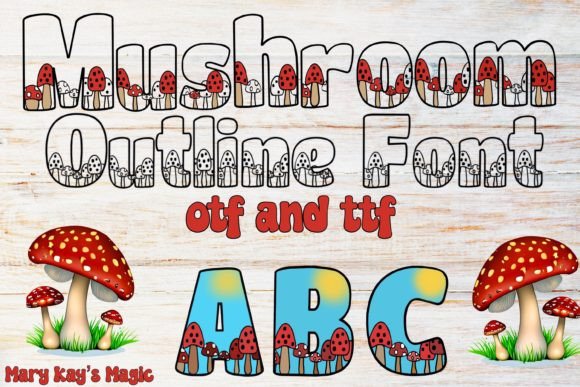
Looking for the best font to use for tumblers and Cricut designs? Look no further than the Mushroom Outline Font! Created by Mary Kay's Magic, this whimsical display font is the perfect addition to your design arsenal.
Featuring tiny mushrooms nestled within the characters, this font is both playful and charming. The curvy letters add a touch of fun to any project, and the mushrooms provide a pop of color that is sure to catch the eye. Whether you're working on a children's book or a nature-inspired design, the Mushroom Outline Font is the perfect choice.